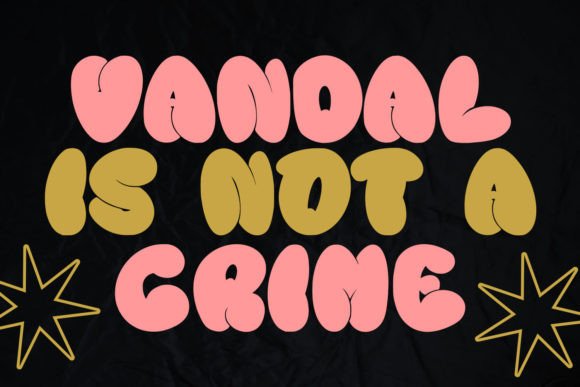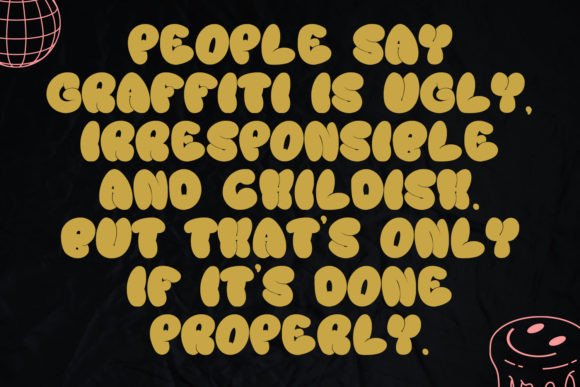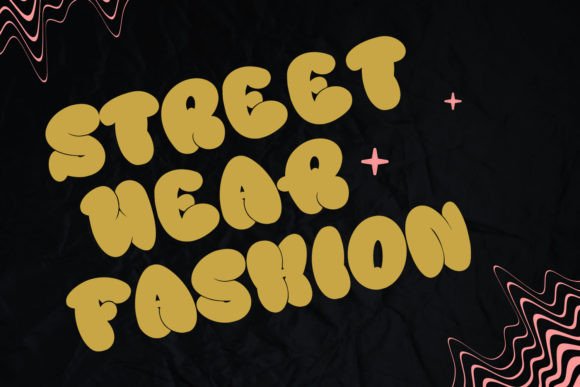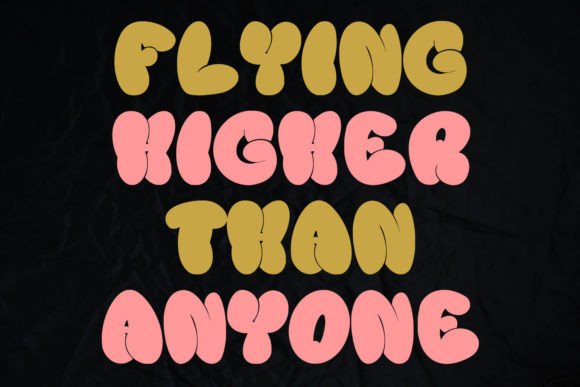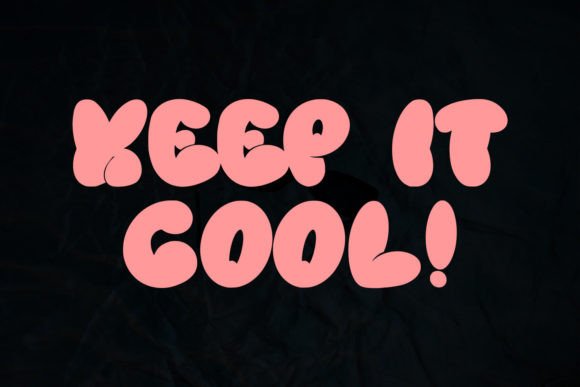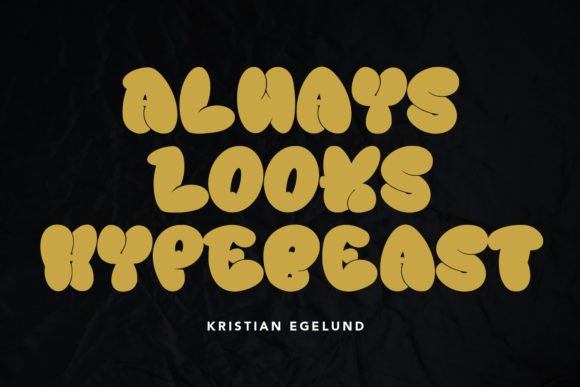
Unleash Your Creativity with Giant Caps Font
You know that moment when a design idea hits you like a ton of bricks? The one where you’re inspired by the city streets, graffiti tags, and bold typography? That’s exactly the vibe we’re going for with the Giant Caps Font. This edgy, rebellious font is designed to make a statement and stand out from the crowd.
Whether you’re a graphic designer, urban artist, or streetwear enthusiast, the Giant Caps Font is the perfect tool to add some serious street cred to your work. With its bold, exaggerated lettering, this font is sure to make a lasting impression. And with its PUA encoding, you can easily access all the glyphs and swashes you need to create something truly unique.
Giant Caps Font Key Features
- Font Family: Giant Caps Font is a unique, bold sans-serif font designed to resemble giant letters, perfect for headings and titles.
- Unique Characteristics: Giant Caps Font features exaggerated, oversized letterforms with clean lines and a bold, striking appearance, making it ideal for attention-grabbing headlines and titles.
- Language Support: The font supports a wide range of languages, including Latin, Cyrillic, and Greek scripts, making it suitable for multilingual projects.
Giant Caps Font Review
Overall, I was quite excited to dive into the Giant Caps Font and see what it had to offer. As a designer, I appreciate unique and bold typography, and at first glance, this font certainly delivered.
- The most striking feature of Giant Caps Font is its massive size and bold, chunky aesthetic. It’s perfect for making a statement and grabbing attention.
- The font’s simplicity and clean lines make it easy to read, even at large sizes. This is a must-have for any designer working on projects that require a bold, eye-catching font.
- The font’s versatility allows it to be used in a wide range of applications, from signage to digital displays.
- One major limitation of Giant Caps Font is its limited character set. It’s not suitable for projects that require a wide range of characters, such as books or documents.
- The font’s bold, chunky aesthetic may not be suitable for all projects, particularly those that require a more subtle or elegant look.
Overall, I would give Giant Caps Font 4 out of 5 stars. While it has some limitations, its unique and bold aesthetic makes it a great choice for projects that require a statement-making font. With some careful planning and consideration of the project’s requirements, Giant Caps Font can be a valuable addition to any designer’s toolkit.
Tips for Getting the Most Out of Giant Caps Font
Use the Giant Caps Font to create eye-catching headings and titles. Experiment with different font sizes and styles to add visual interest to your designs. This font is particularly effective in creating bold and dramatic effects.
The Giant Caps Font is ideal for:
- Banner designs
- Emphasis and emphasis
- Brand identity and logos
Alternatives to Giant Caps Font
Playfair Display is an elegant and luxurious serif font, ideal for use in high-end branding, magazines, and luxury goods. It features intricate details and connections between letters, making it a great choice for designers who want to add sophistication and refinement to their designs.
Compared to Giant Caps Font, Playfair Display is more refined and luxurious, making it suitable for high-end designs. While Giant Caps Font is bold and attention-grabbing, Playfair Display is more subtle and elegant.
Montserrat is a modern sans-serif font, designed for use in urban environments. It features clean lines and a geometric feel, making it perfect for use in cityscape designs, logos, and branding materials.
Compared to Giant Caps Font, Montserrat is more modern and sleek, making it suitable for designers who want to create a contemporary look. While Giant Caps Font is bold and attention-grabbing, Montserrat is more understated and versatile.